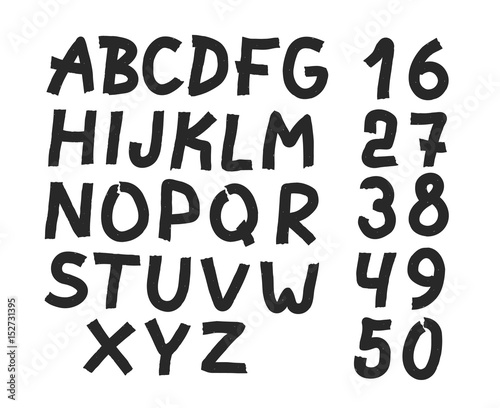
Hand drawn letters and numbers font. bold comic modern marker lettering. Grunge font, Sans serif. Vector design. Isolated on white background. alphabet written with ink, brush. calligraphy, black